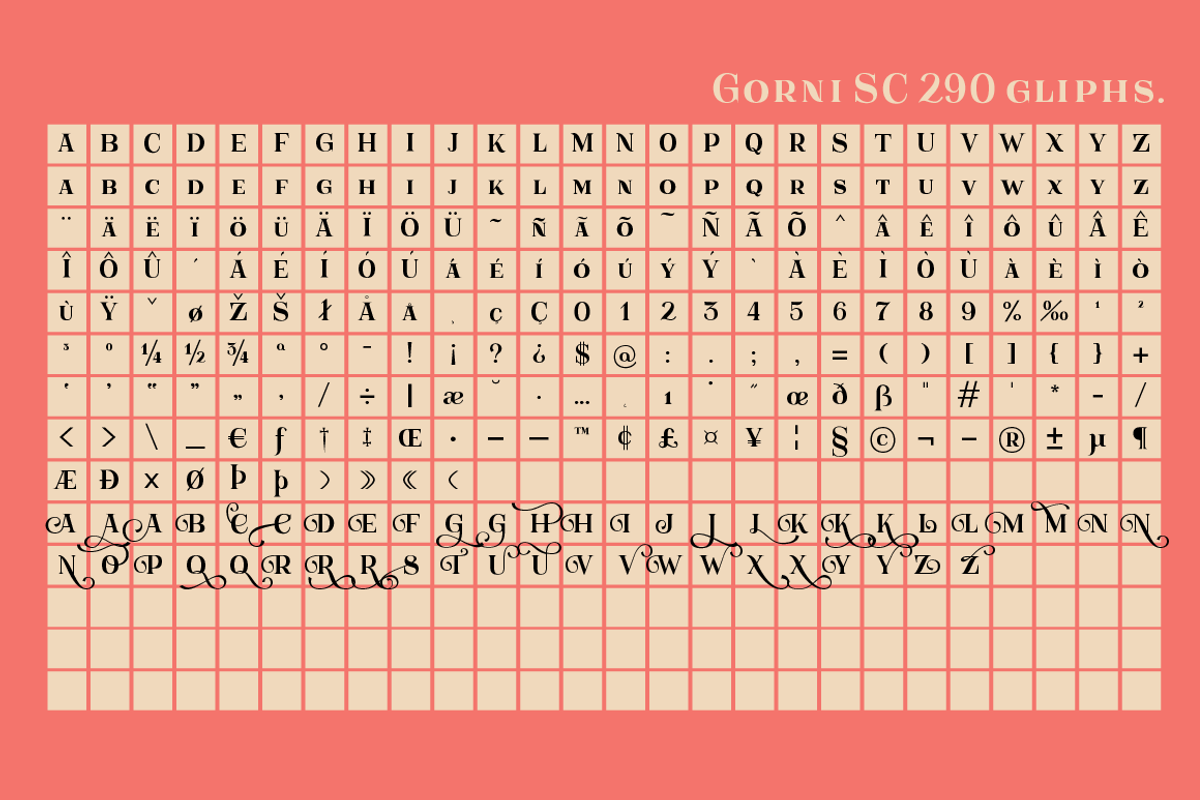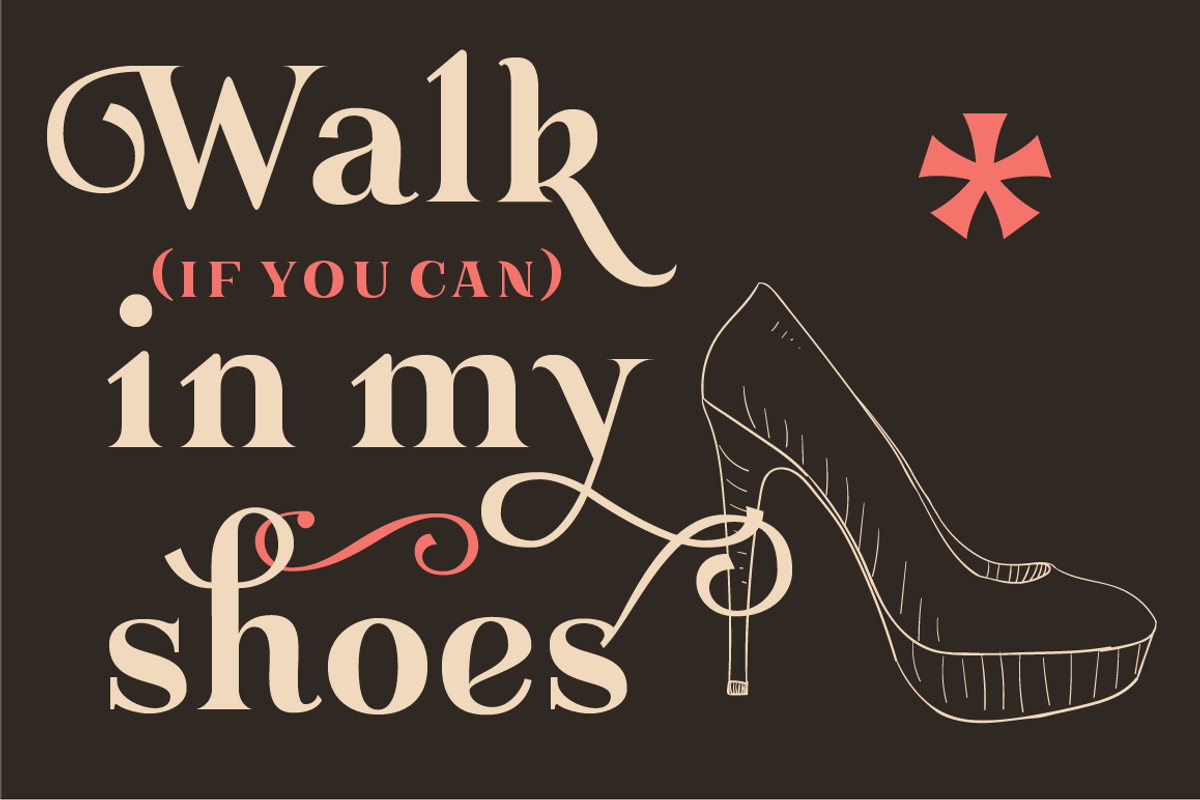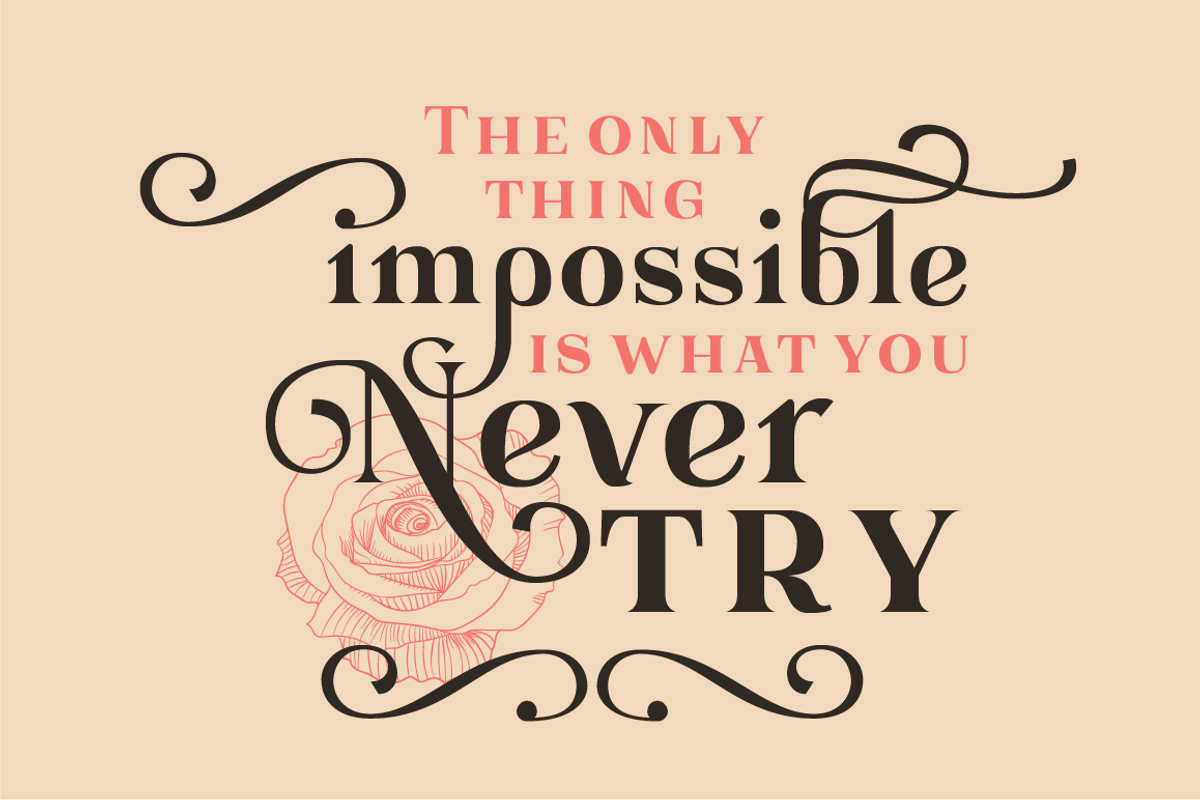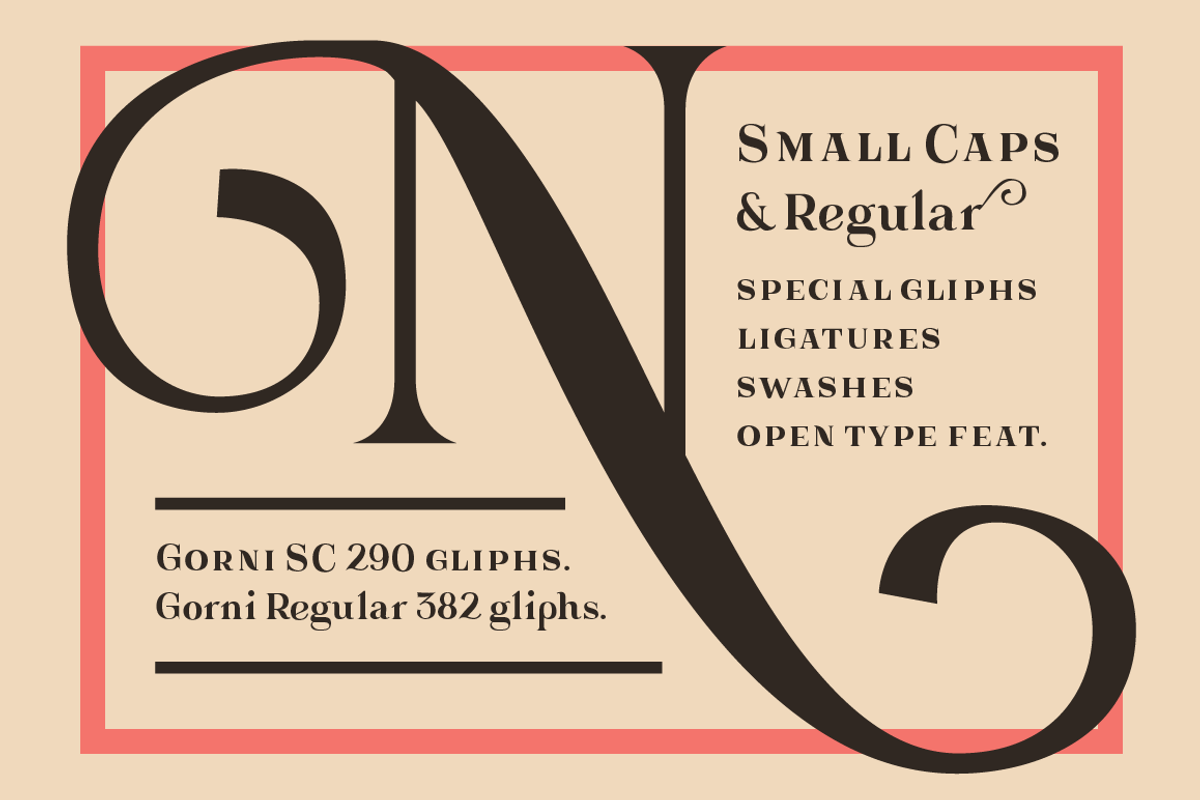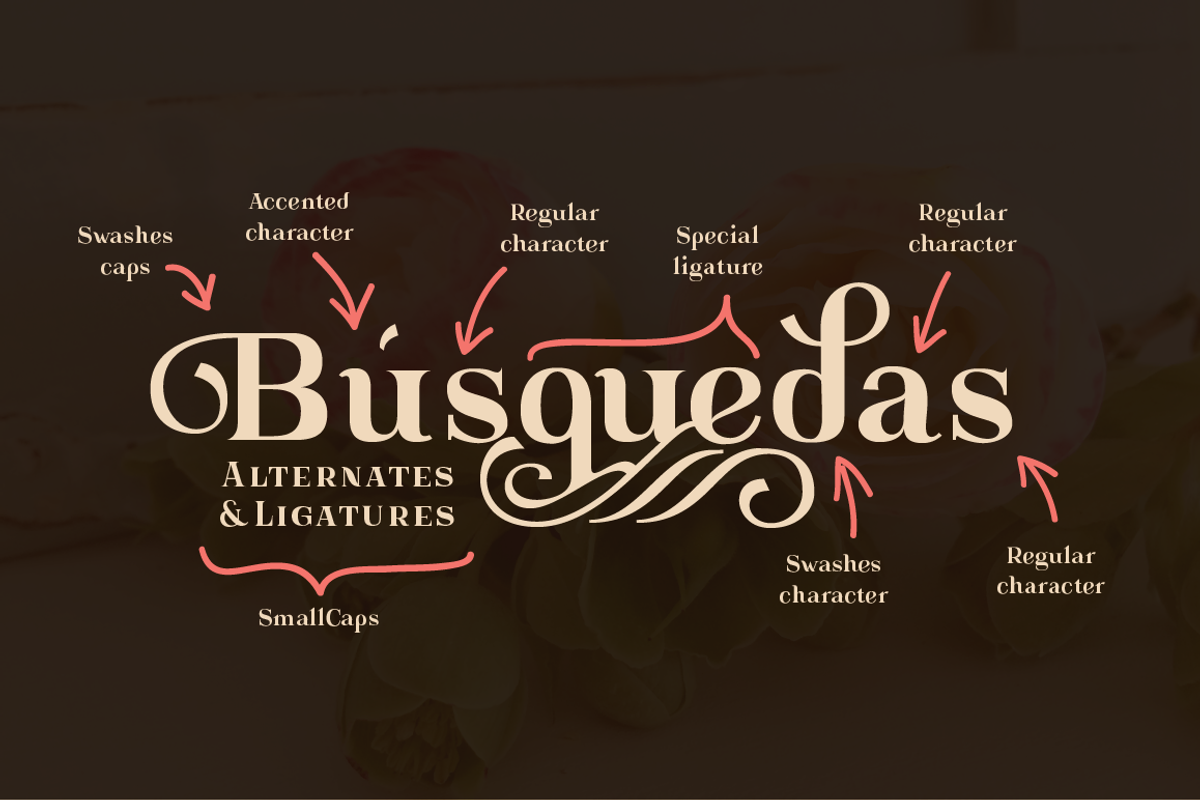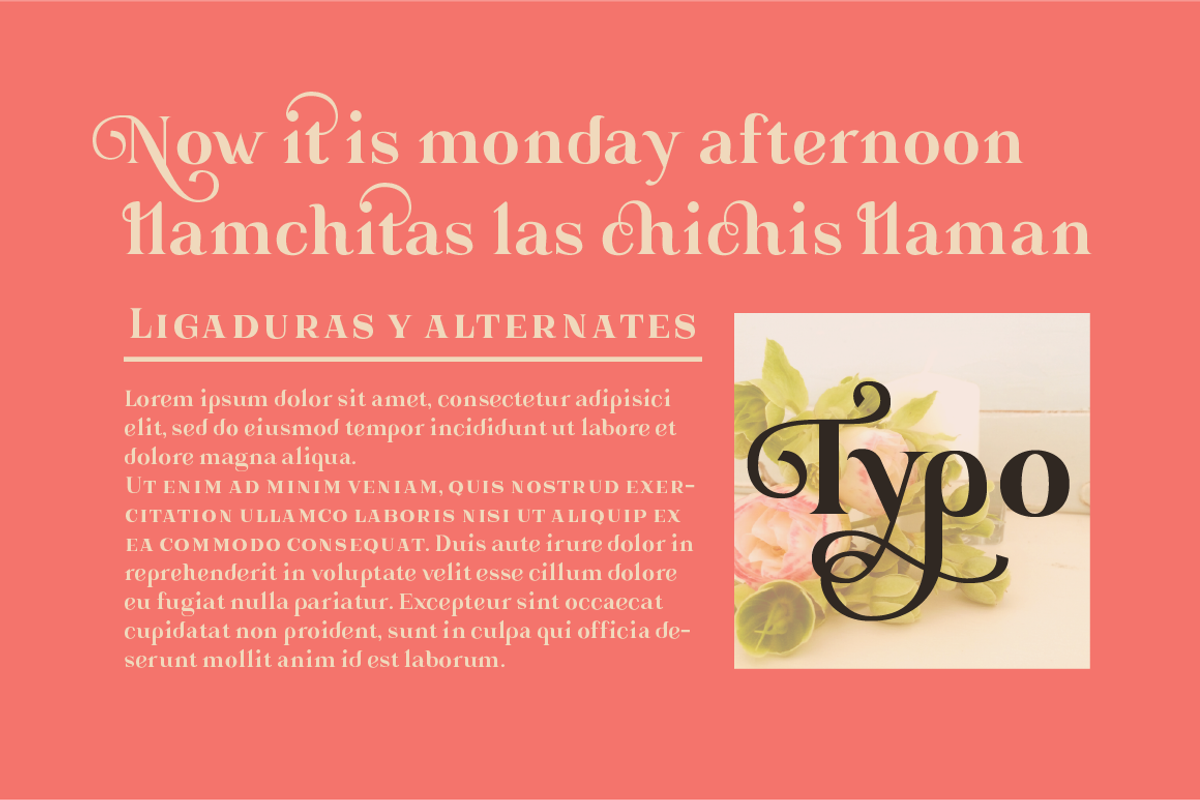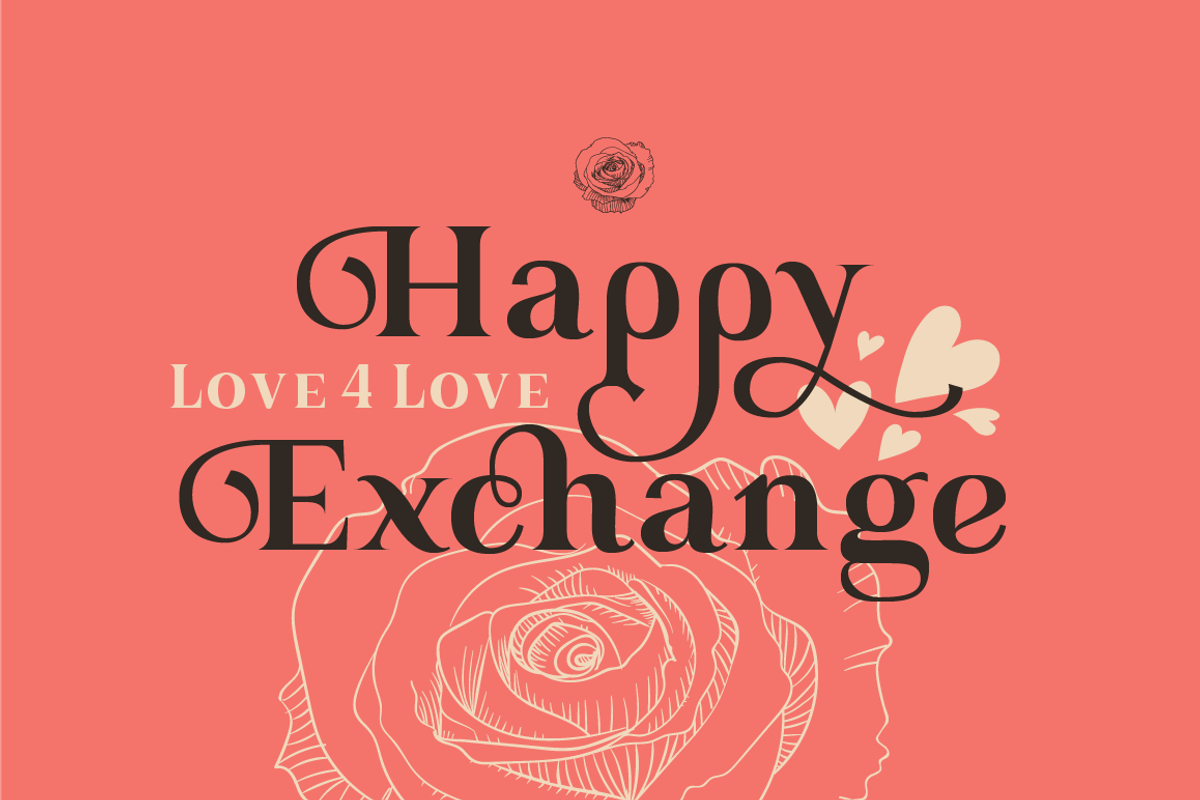
Gorni typeface
Gorni is a display serif font with a romantic vibe, perfect for maintaining simplicity but with a special flair.
Its special characters and ligatures make your text unique and distinguished, including both regular and smallcaps versions, you may mix them and create amazing compositions, ideal for titling, posters, cards, etc.
- Special ligatures
- Swashes and alternates
- Open Type features
- Both Regular (382 glyphs) and Small Capitals (290 glyphs) version
- Punctuation special glyphs, numbers and symbols